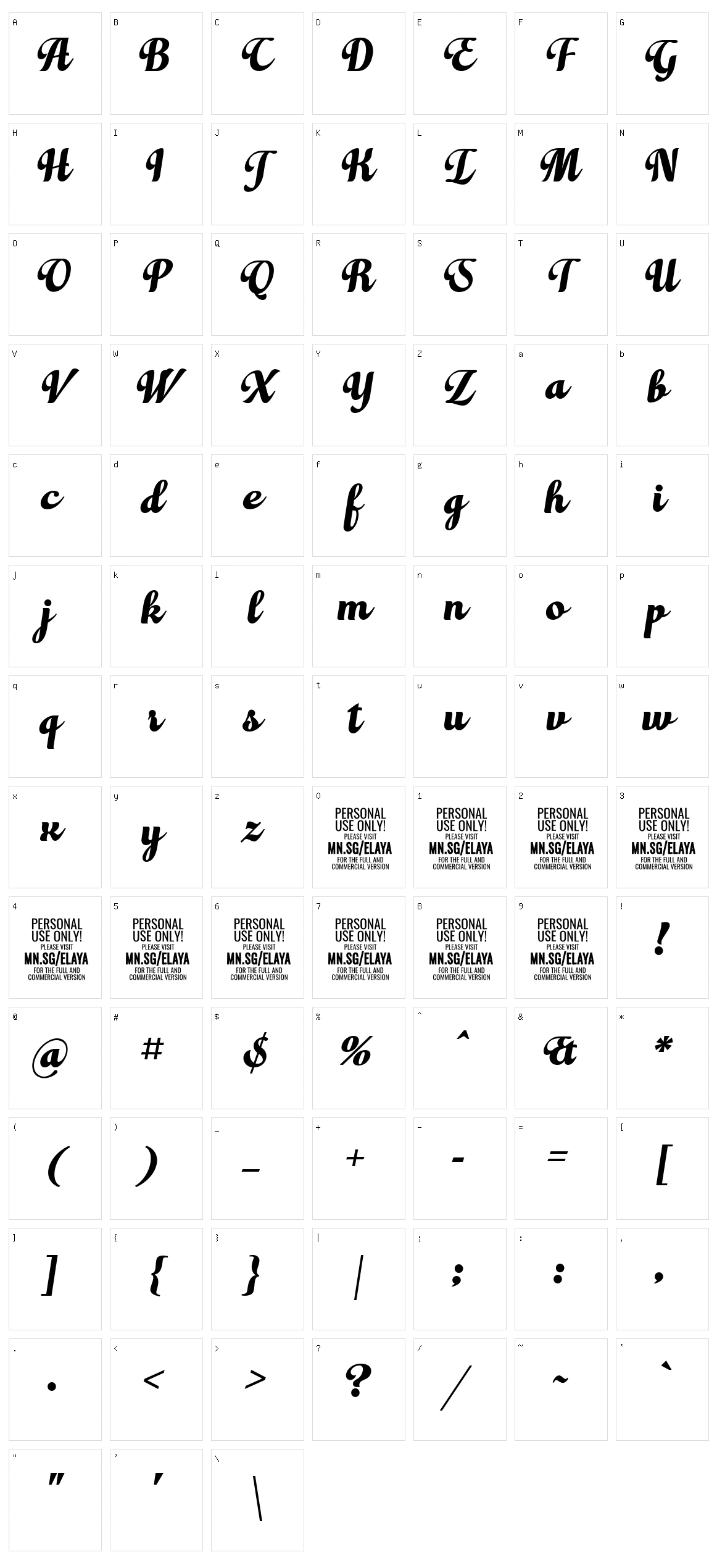
Elaya Script is a formal and flowing script typeface.
Silky and smooth curves, but with a straight and rigid backbone.
Perfect for logotypes and titles of a project to emit friendly earnestness.
The font contains OpenType functions such as alternates and ligatures.
It supports all European Latin-based languages and has all necessary punctuation and symbols.